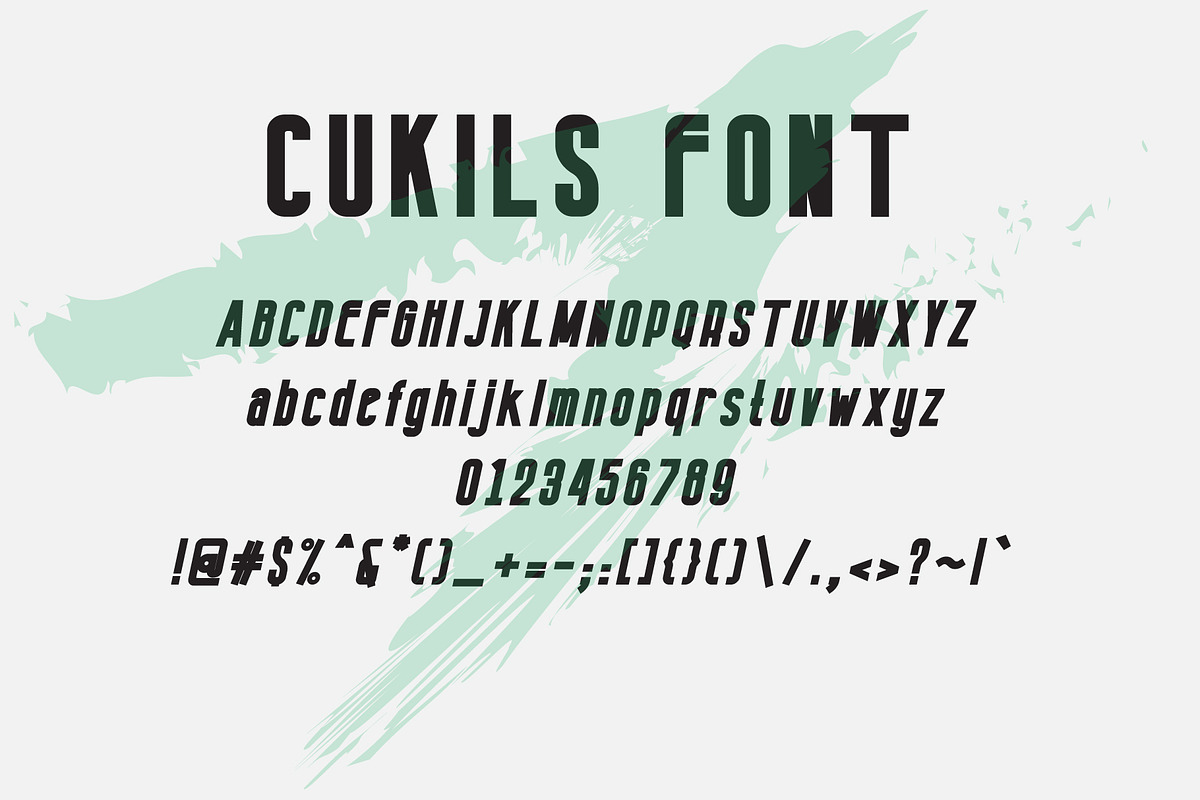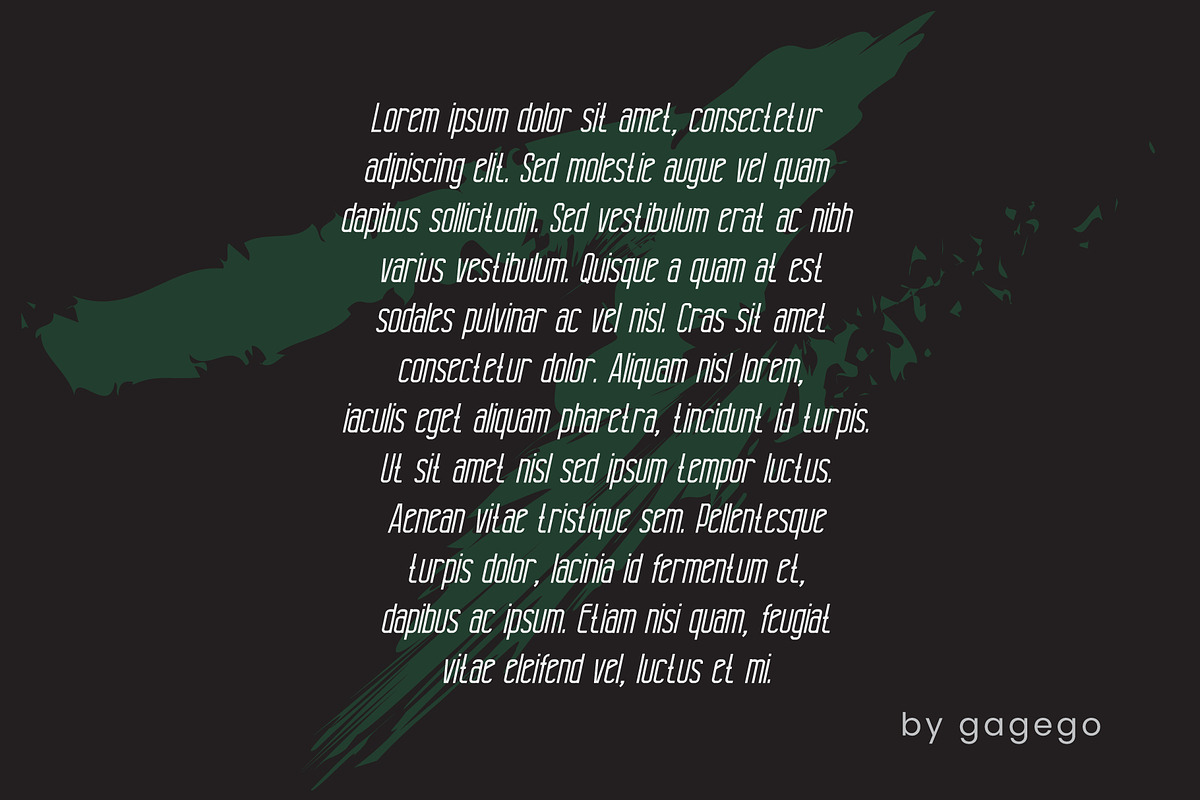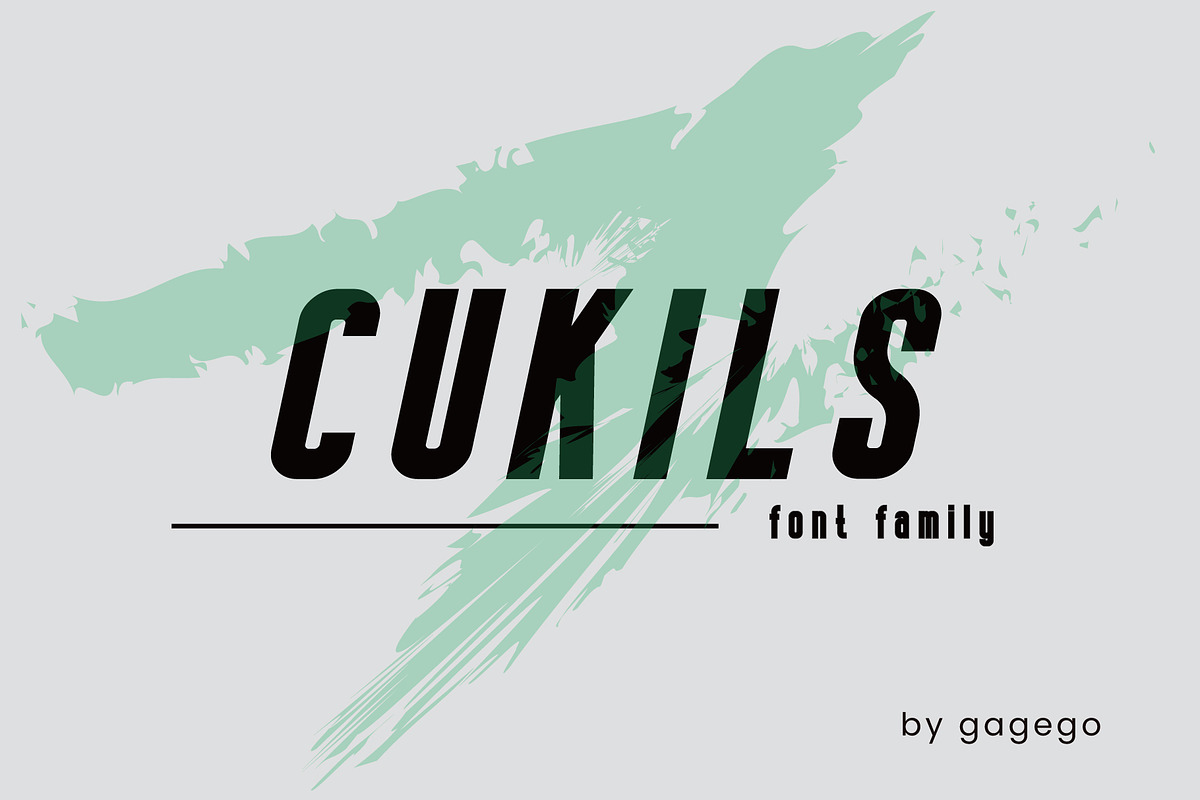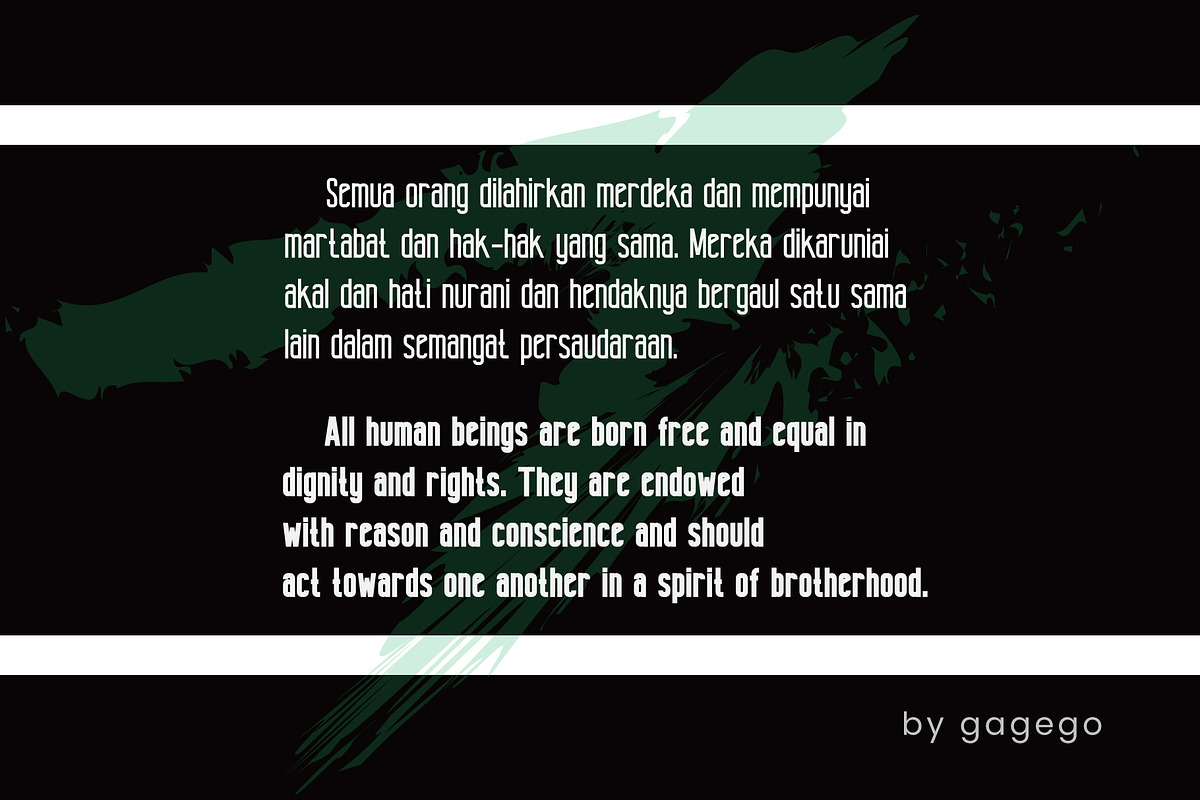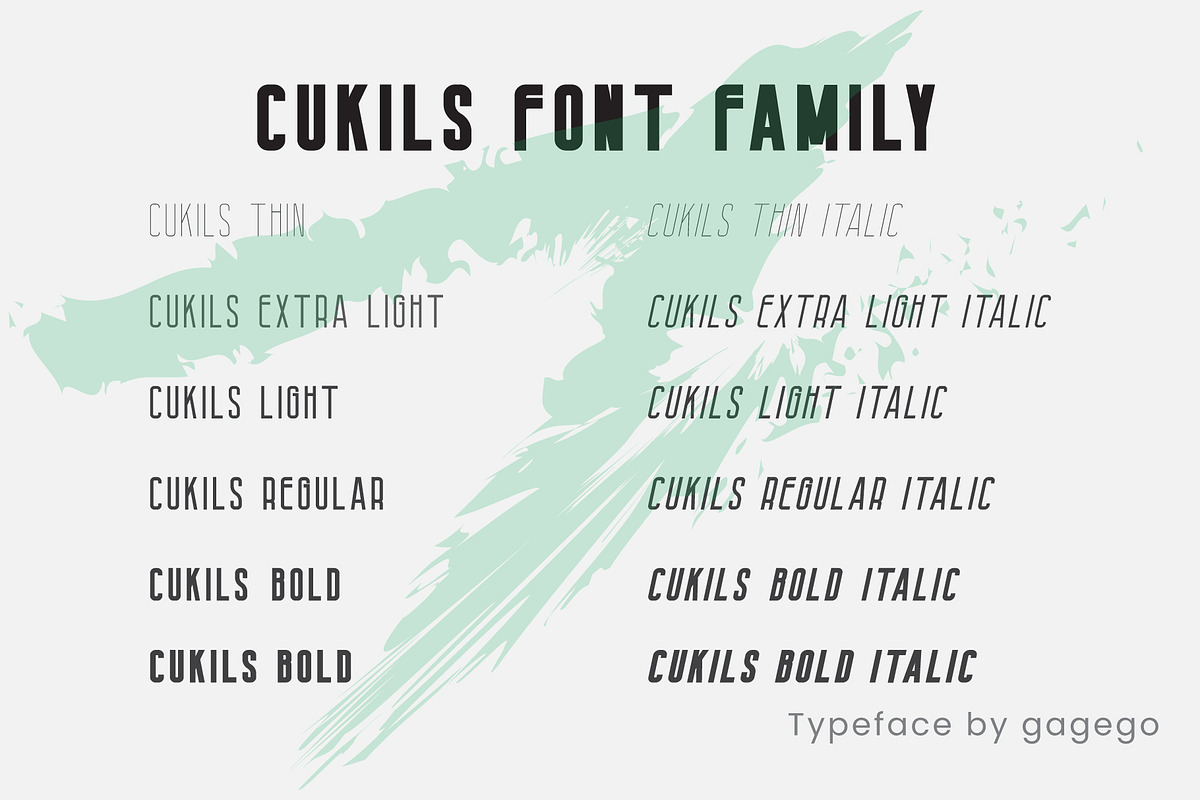
Cukils Font Sans Serif
We introduce a unique but interesting font, the name of the font is CUKILS FONT. This font provides uppercase, and provides lowercase as well. This font is suitable for making books or banners and whatever, because this font looks relaxed, happy, joyful, and unique. CUKILS FONT is available in several types of fonts
1 Thin 2 Thin Italics 3 Extra Lights 4 Extra Light Italics 5 Lights 6 Light Italics 5 Regulars 6 Regular Itlic 7 Mediums 8 Medium Italics 9 Semi bold 10 Semi-bold Italic